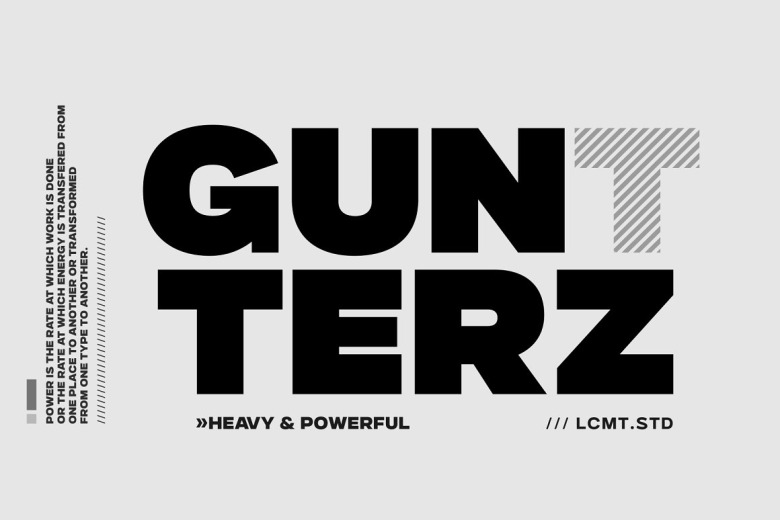
Gunterz Font
Gunterz is an expressive and attention grabbing, all-caps sans serif font family in 3 styles to assist make your message super easy for the exhibition. The free version has two styles which are Medium and Medium Italic, this family has. four weights including its matching italics. Gunterz will make your design work more optimal in any situation. Besides that, Gunterz also completed by Open Type features such as stylistic alternates and a stylistic set.
for others, this font also supports cyrillic. Gunterz is perfect for poster title, packaging design, headline logotype, action video game mock-up/movie titles/sports brand/logotypes promotion/future techno.
Gunterz Sans Serif Font